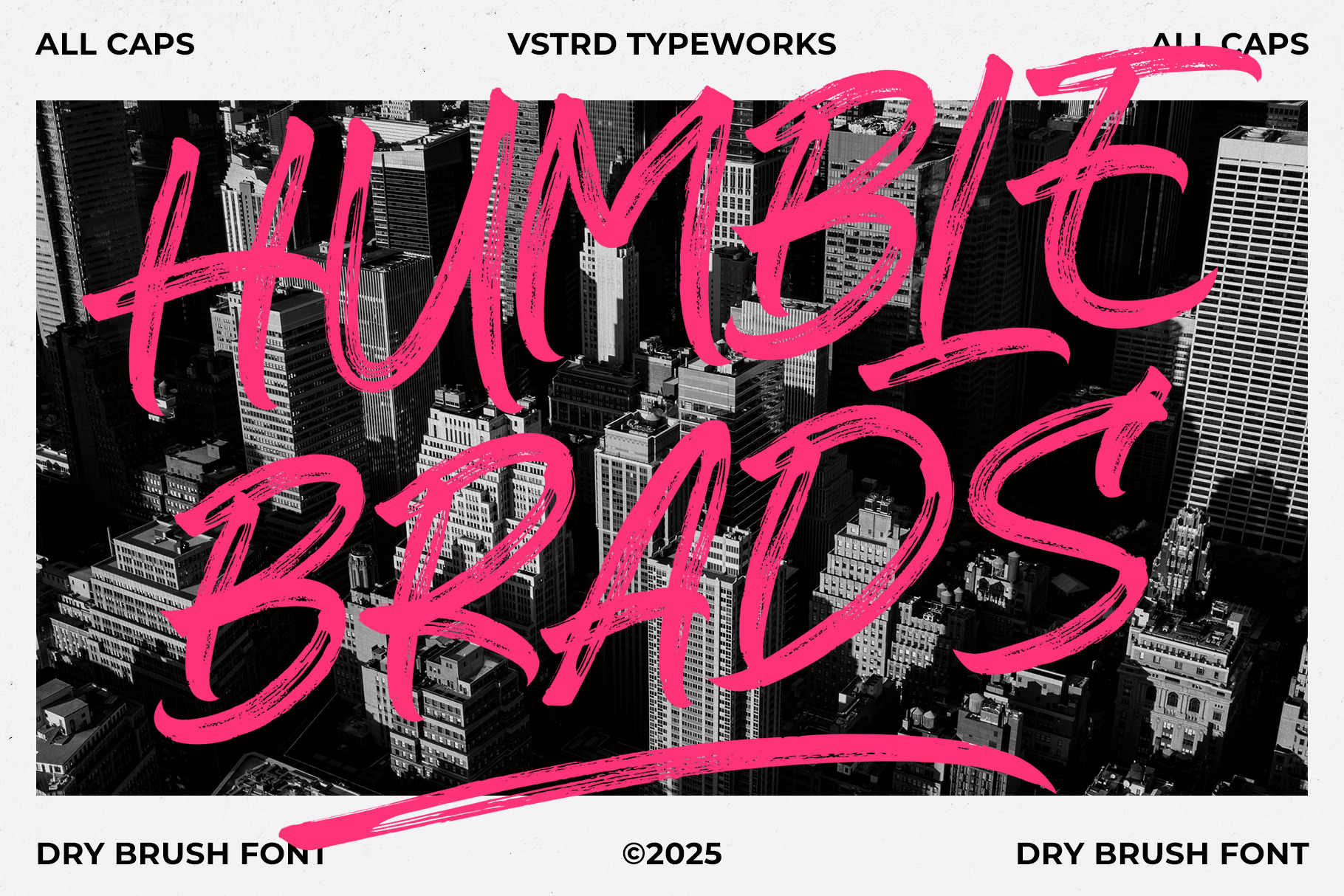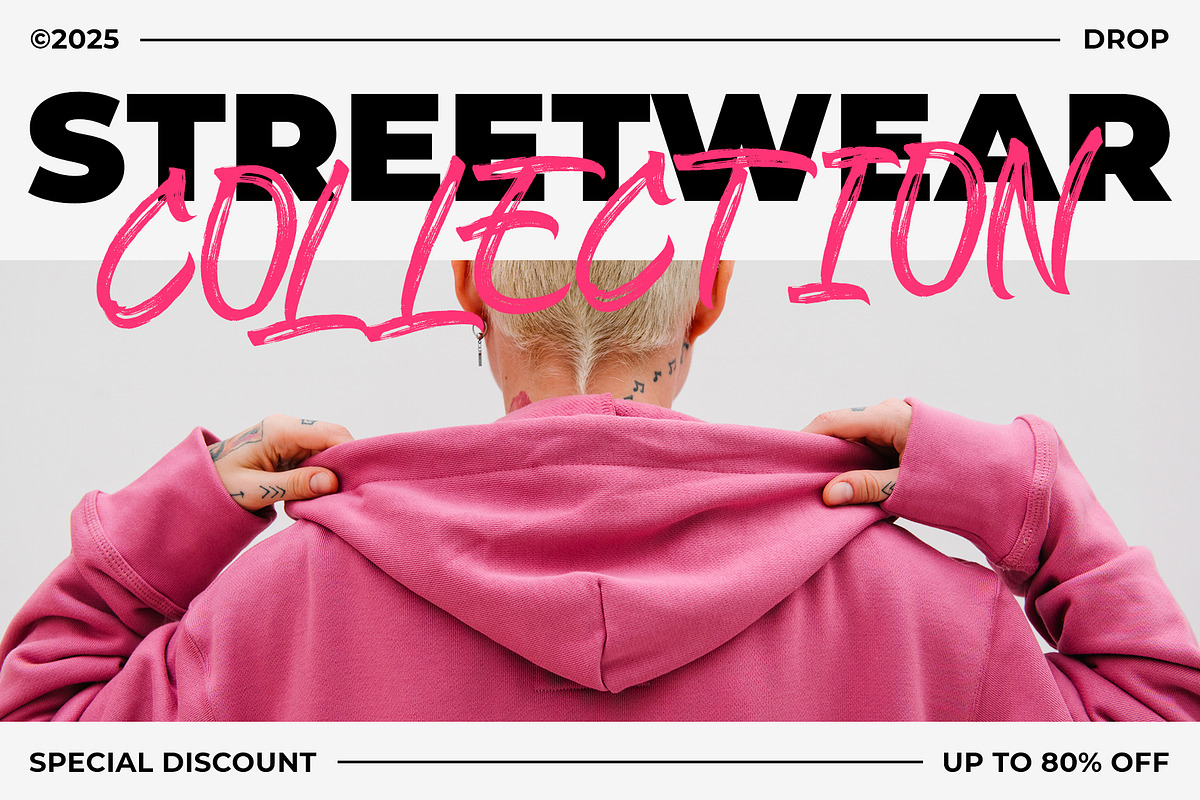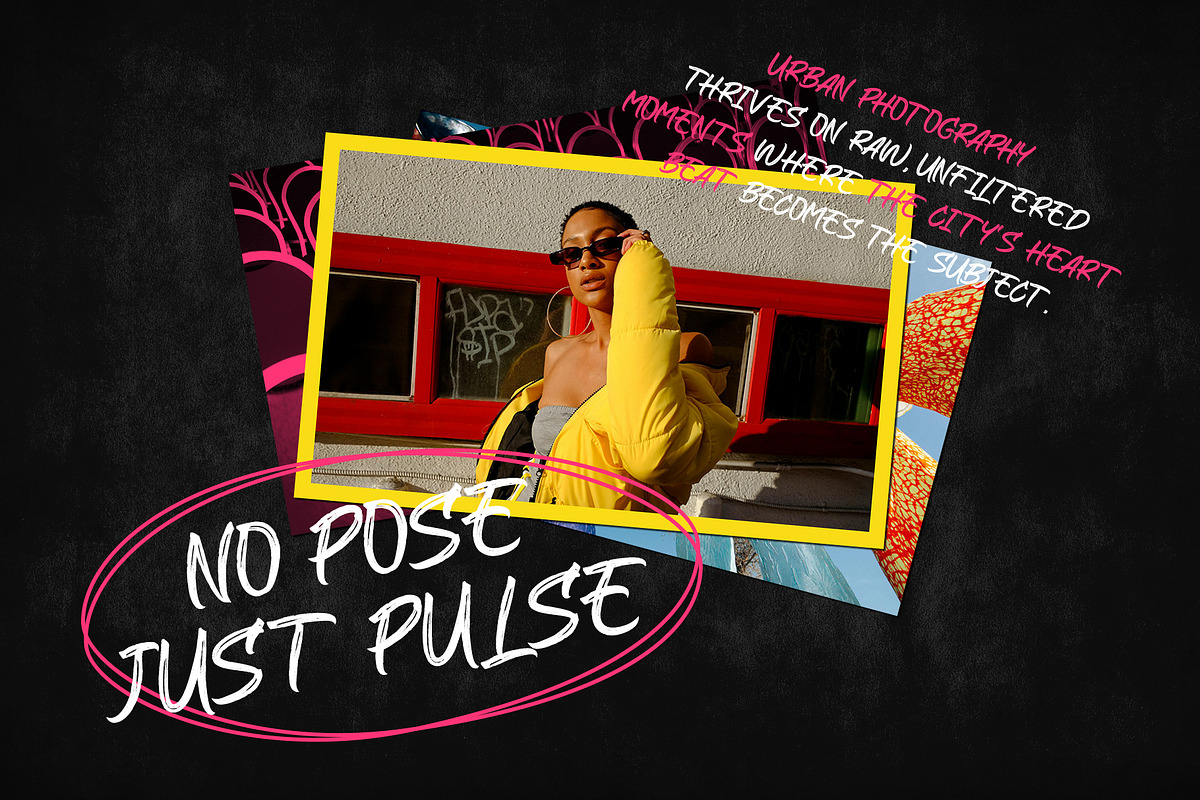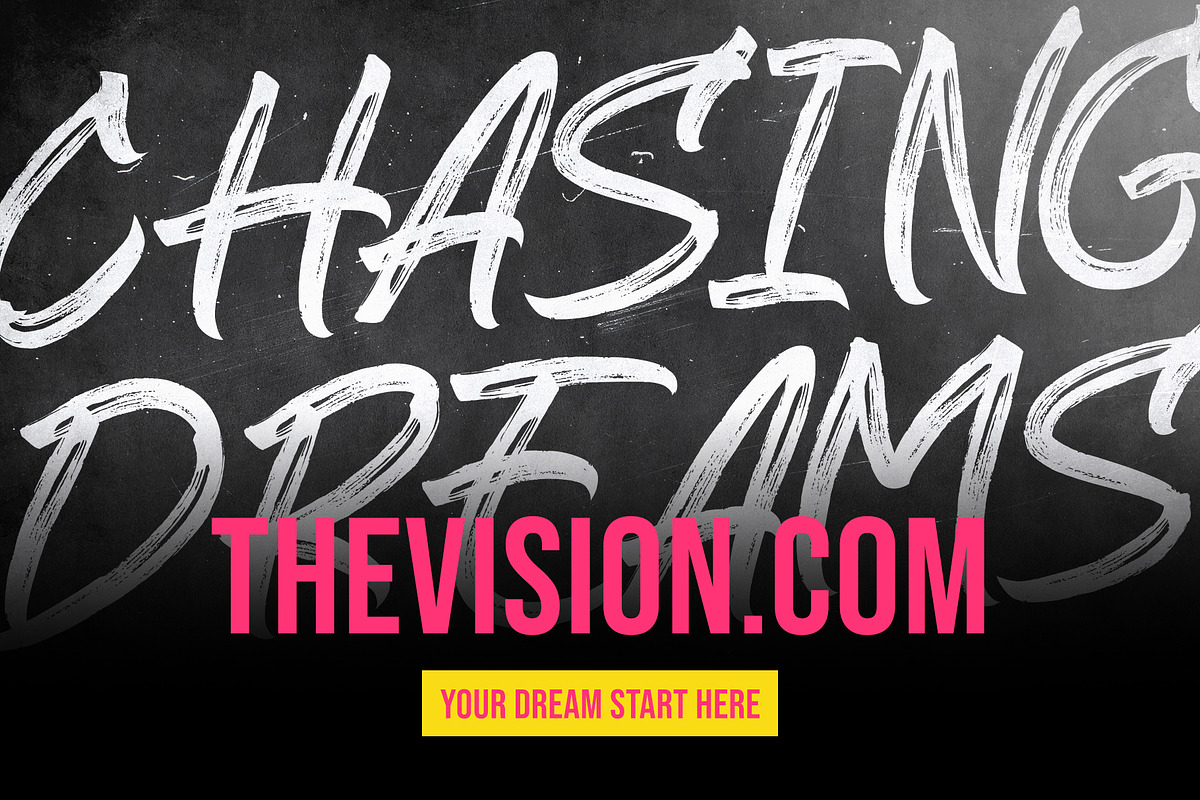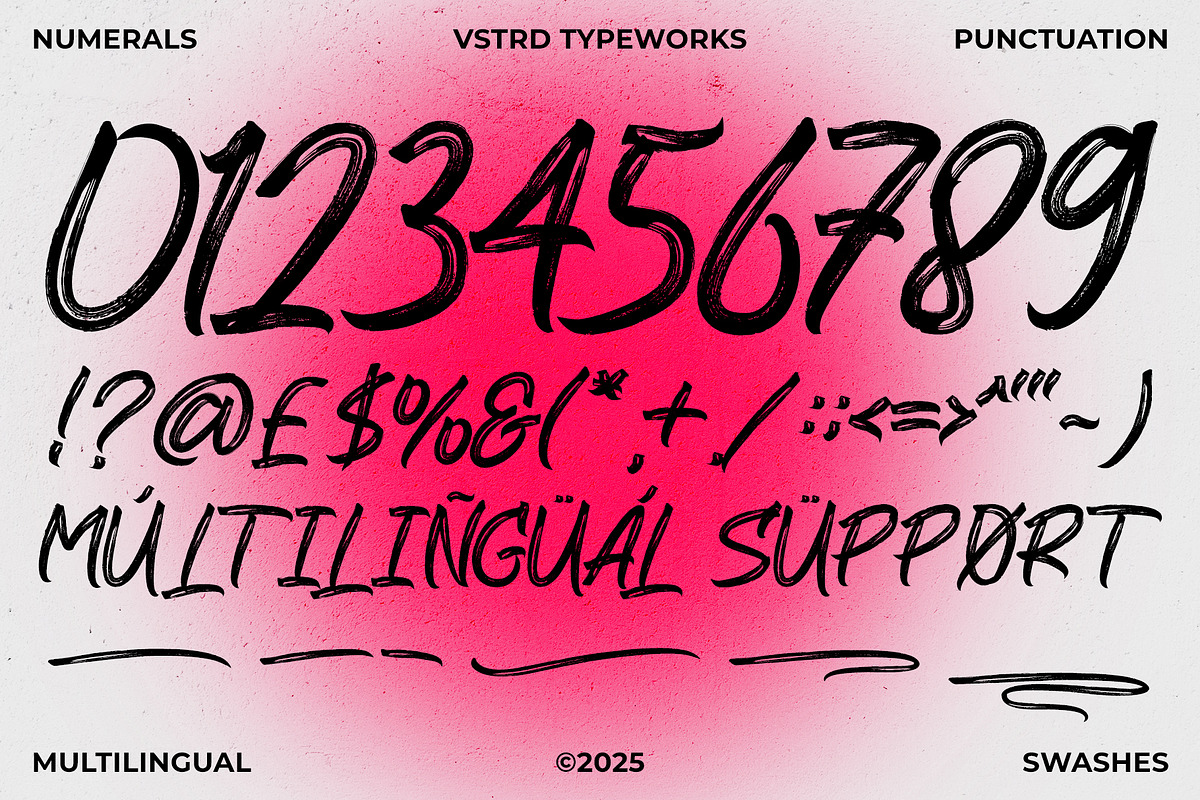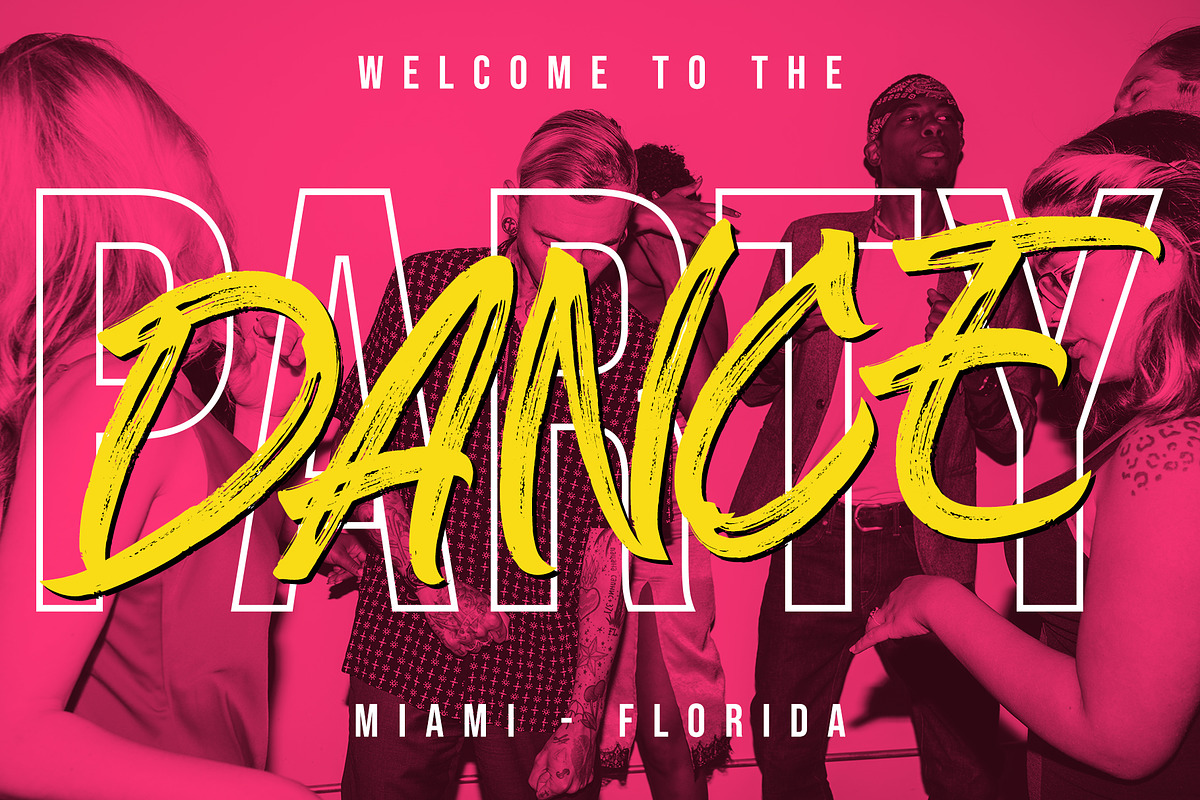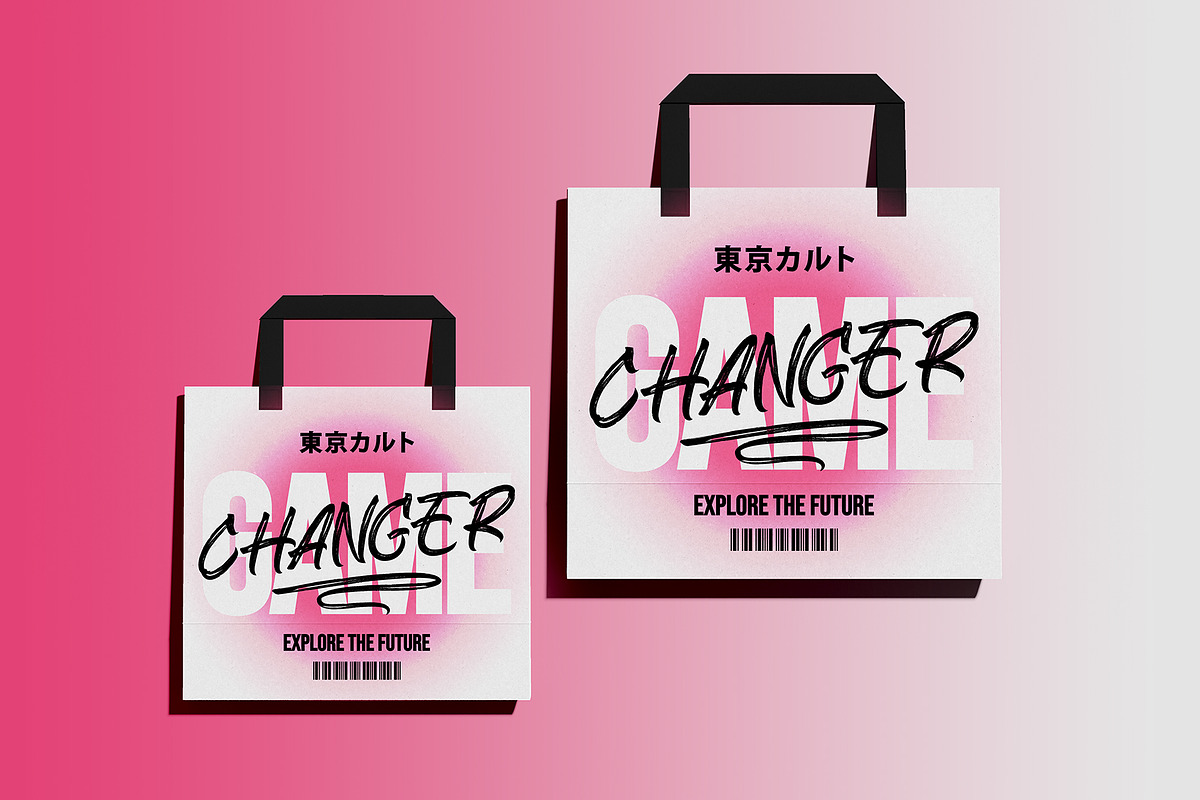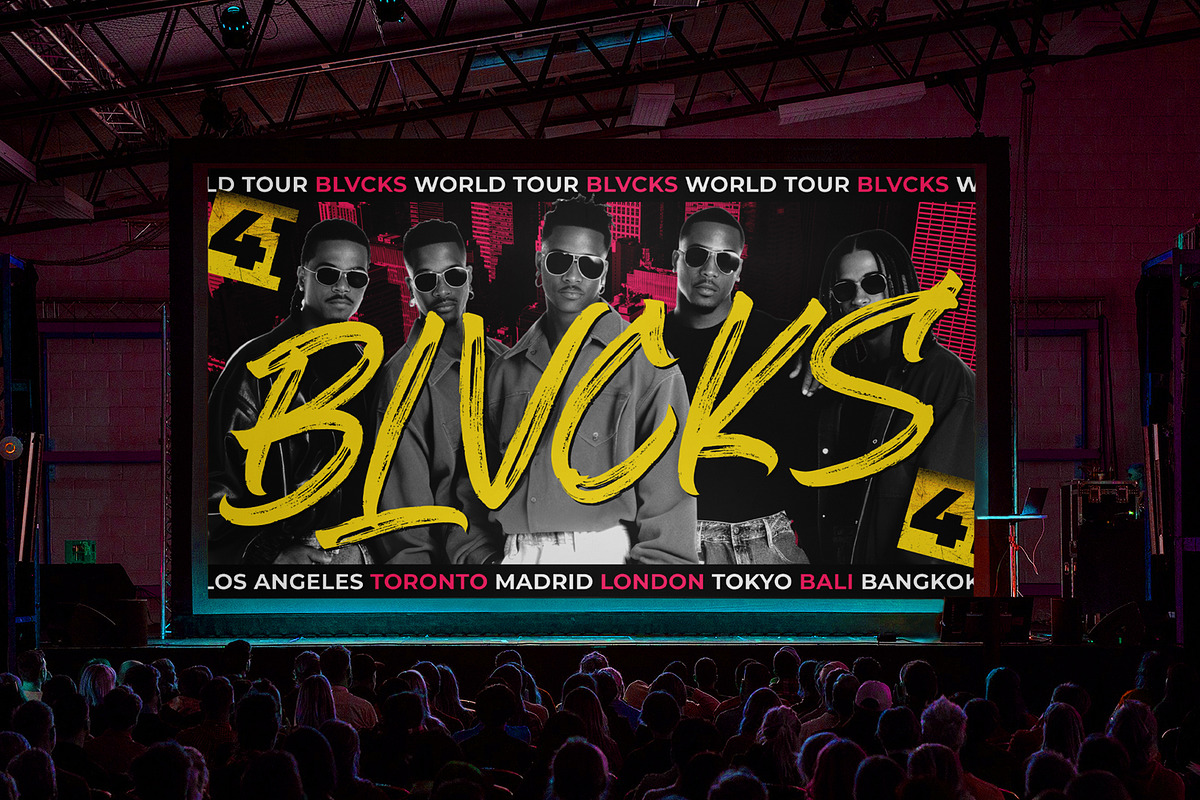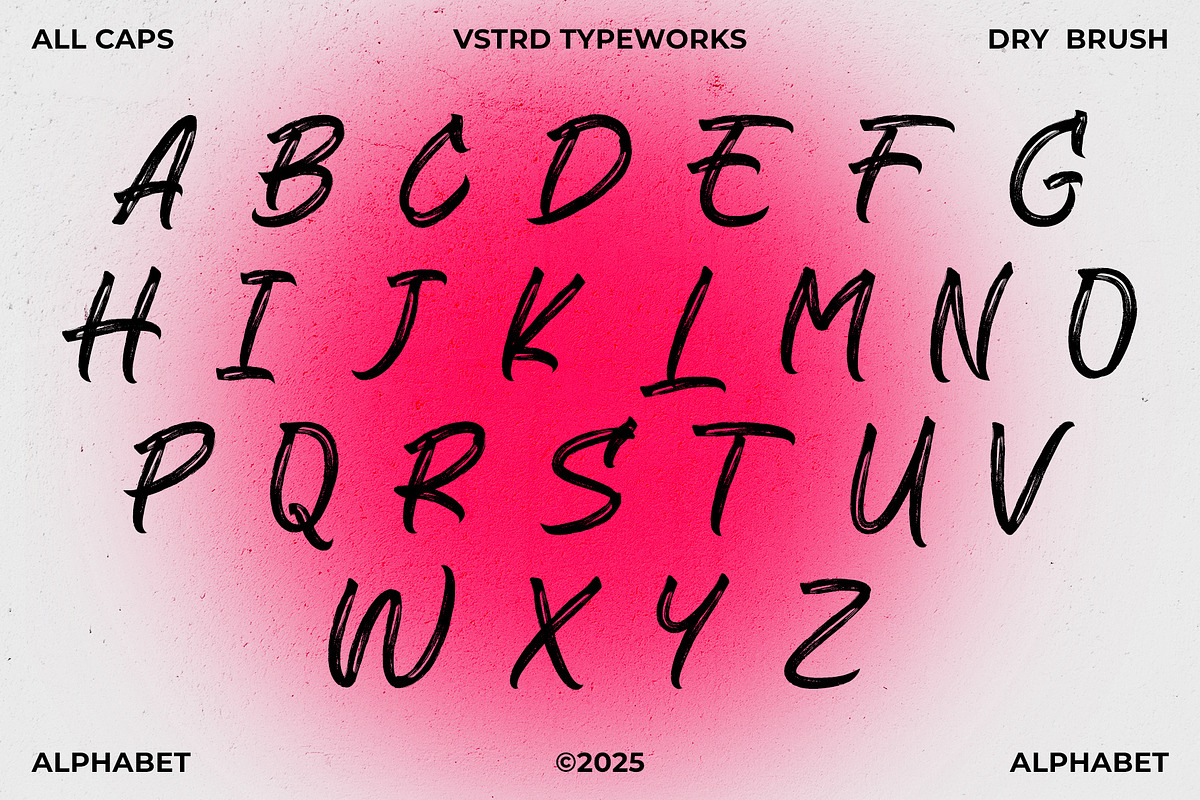
Humble Brads - Urban Brush Font
Bring energy and attitude to your designs with Humble Brads, a powerful brush font crafted from natural, hand brush strokes. With its raw, and expressive strokes, this font is perfect for projects that demand a powerful, rebellious edge.
Ideal for logos, Urban Themed Campaign, food & beverage branding, promotional campaigns, video titles, product packaging, quotes, posters, flyers, and eye-catching text overlays, Humble Brads adds a handcrafted, urban feel to any design.
- Perfect for high-impact branding and statement typography
- Versatile for both digital and print projects
- Adds an edgy, street-art-inspired vibe to your designs
Make a statement with Humble Brads – where powerful strokes meet fearless creativity!
- All Caps Uppercase & Lowercase